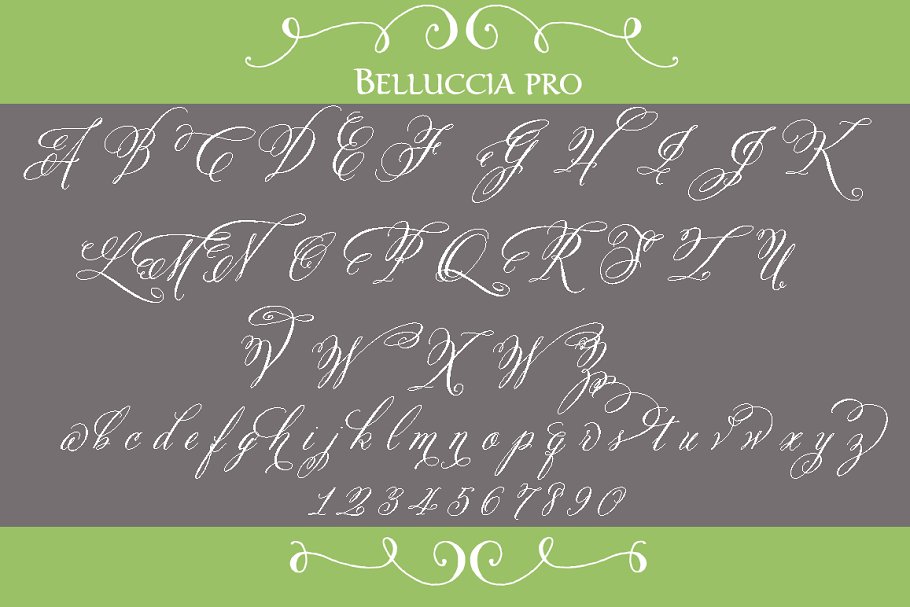
Introducing Belluccia Pro, the best font for reading a script, created by Debi Sementelli. With four unique fonts in one, Belluccia Regular, Belluccia Contextual, Belluccia Stylistic, and Belluccia Swashes, you can create a custom look for any project.
By purchasing Belluccia Pro, you can easily create stunning wedding signage, including invitations, envelope addressing, programs, menus, place cards, favor tags, and thank you cards. Each font set comes with additional letters, flourishes, and ornaments to give your project a personalized touch.